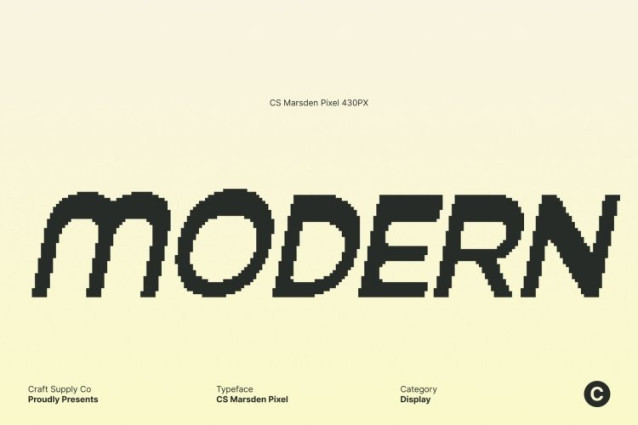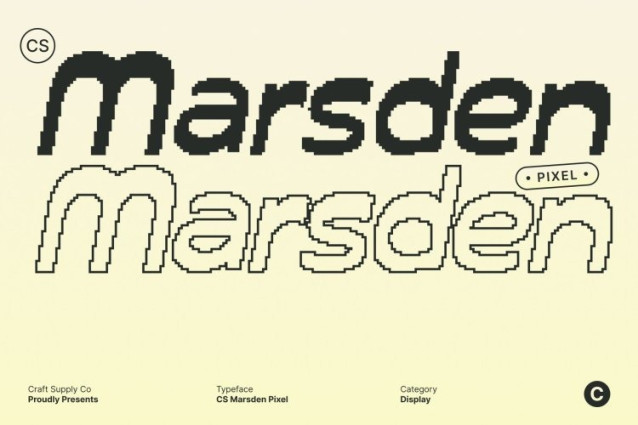
CS Marsden Pixel Font
CS Marsden Pixel Font This is a striking reverse-contrast display font that merges bold, geometric forms with subtle pixel detailing. Its inverted stroke weights create a visually dynamic and memorable effect, while the pixel structure gives it a modern, digital-ready edge, perfect for contemporary branding and display projects.
Modular Geometry with Digital Clarity
The carefully crafted modular letterforms maintain balance, readability, and rhythm across every character. Pixel refinement adds crispness and a subtle retro-tech feel, enhancing the font’s bold visual impact while retaining its structured, modern elegance.
Bold Presence for Maximum Impact
With strong reverse-contrast shapes and pixel-infused styling, this font commands attention in any layout. It’s ideal for posters, editorial headlines, branding, packaging, and promotional materials, ensuring that every design communicates confidence, style, and visual energy.
Perfect for Modern Branding and Creative Displays
This font bridges classic typographic principles with contemporary pixel aesthetics. Its bold, structured, and digitally refined character makes it perfect for distinctive branding, campaigns, or any project that seeks to stand out with sophistication, clarity, and modern flair.